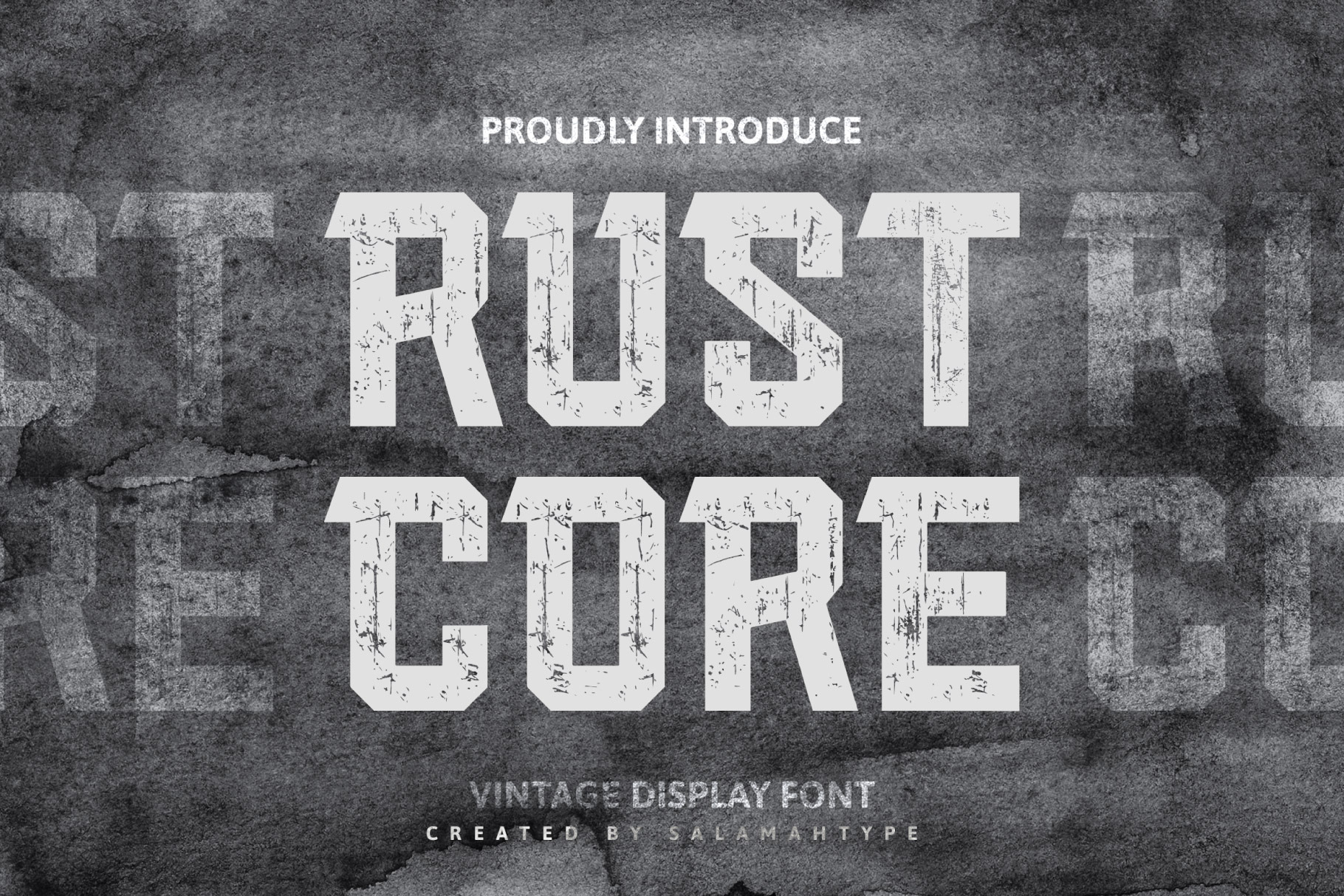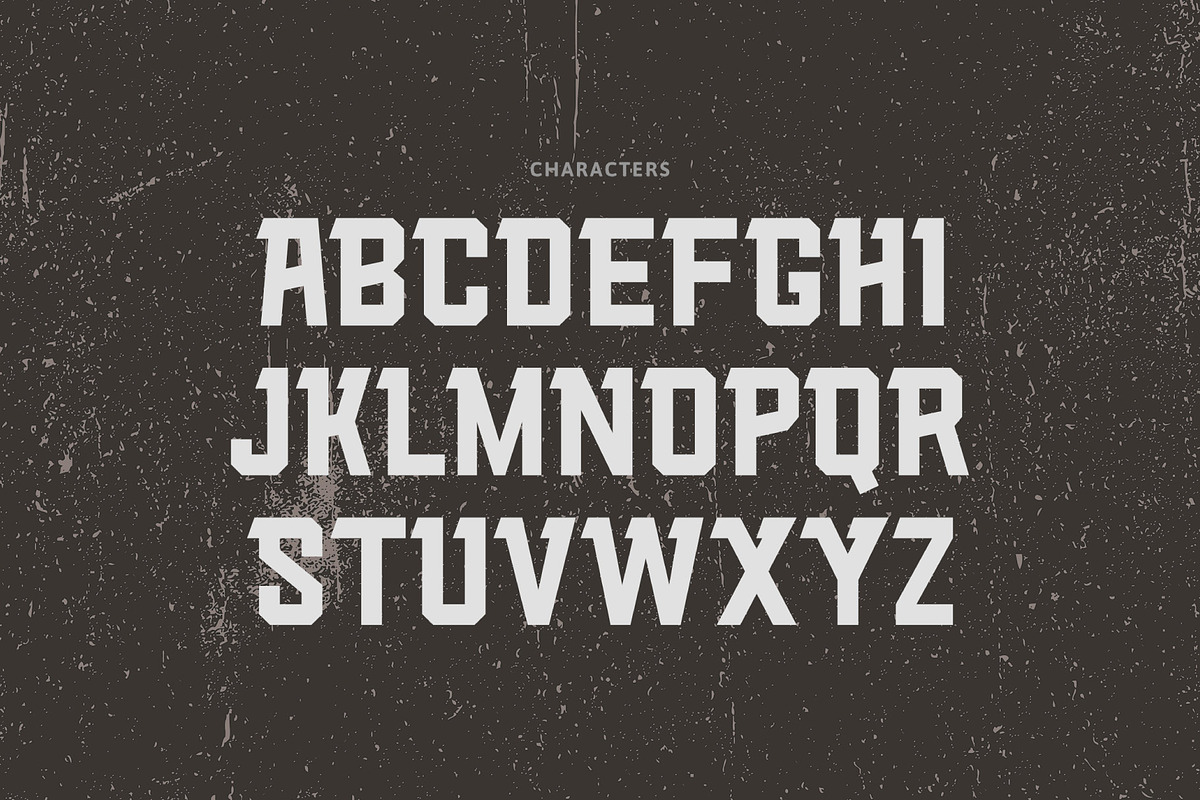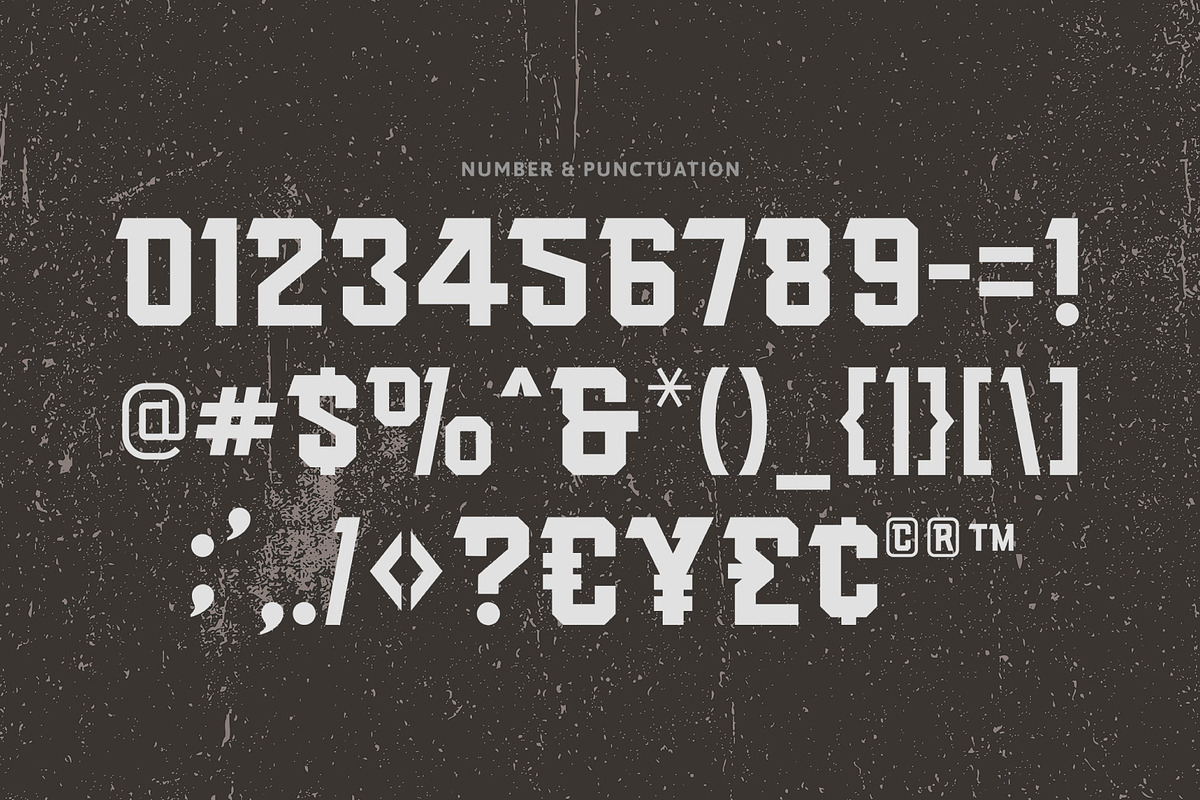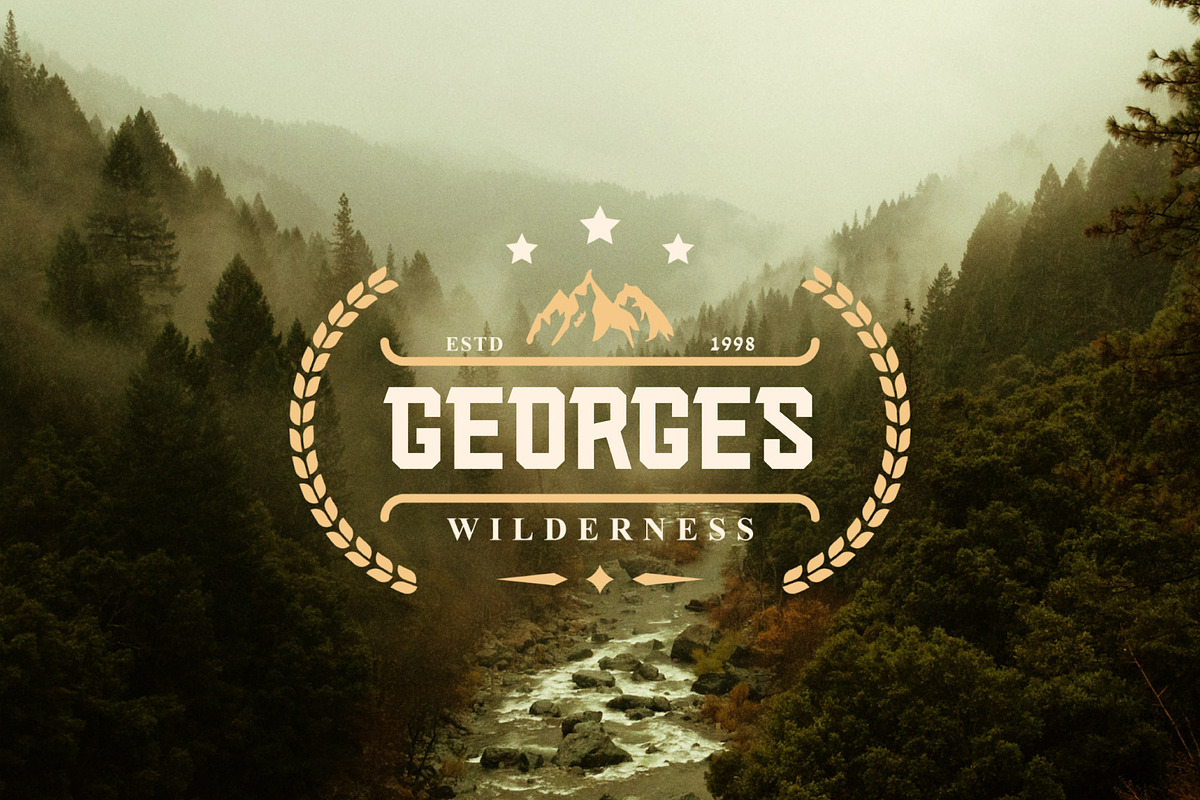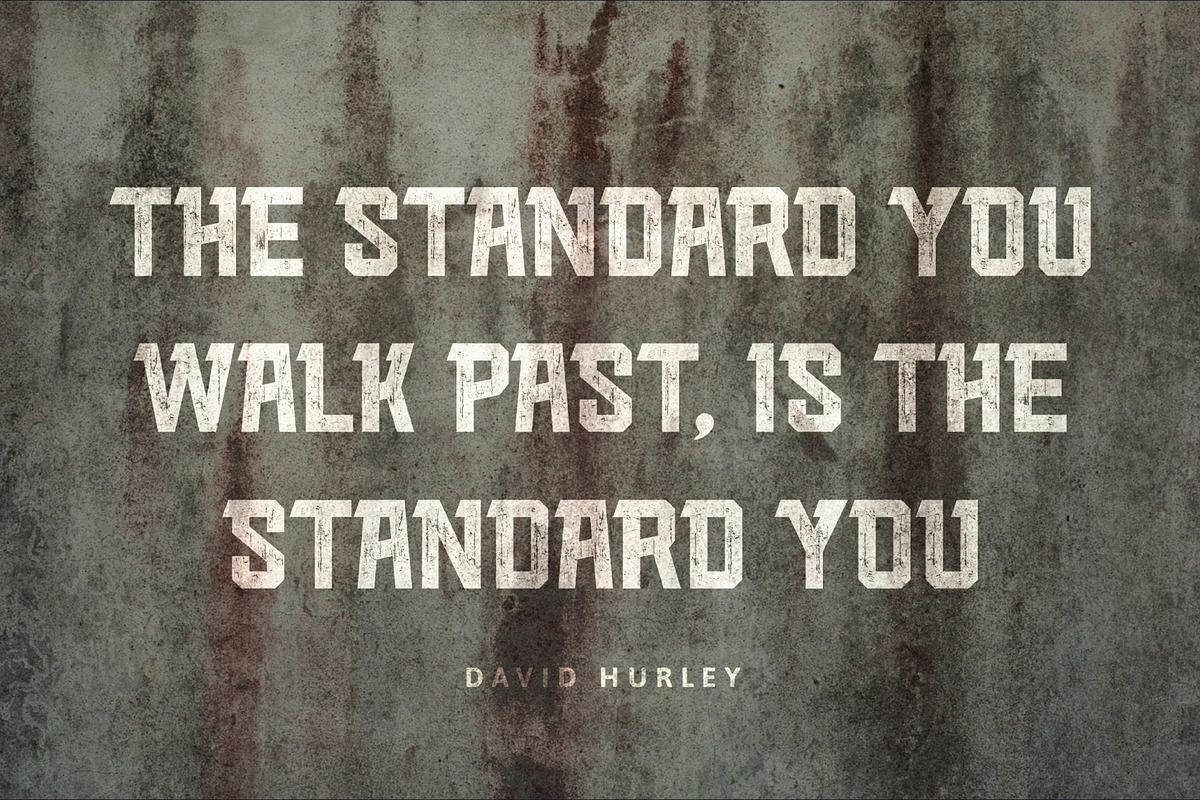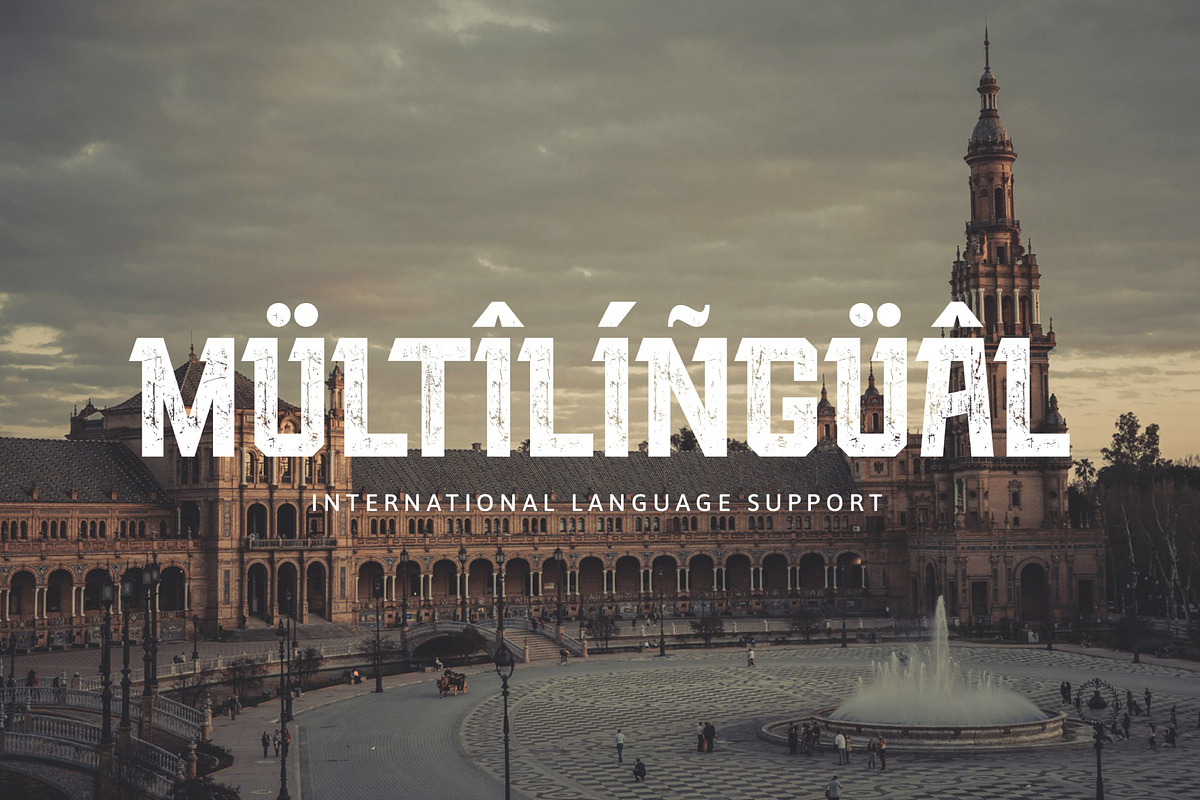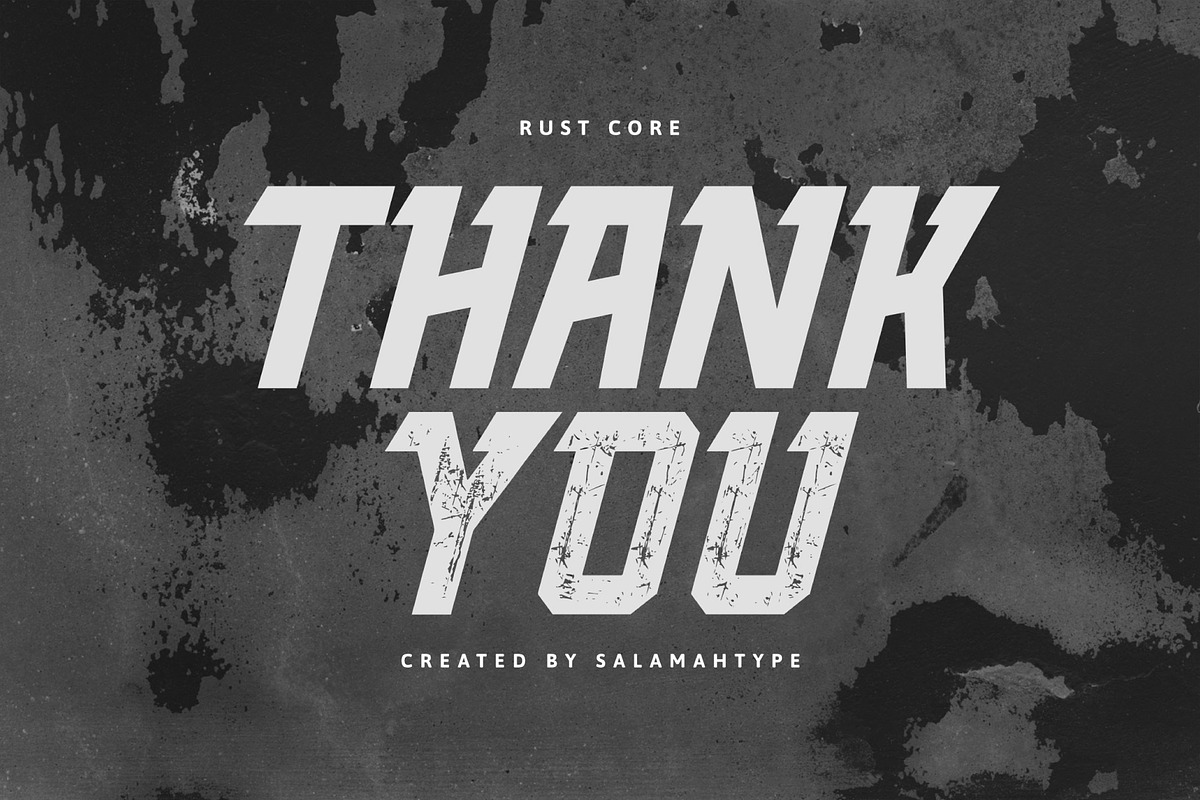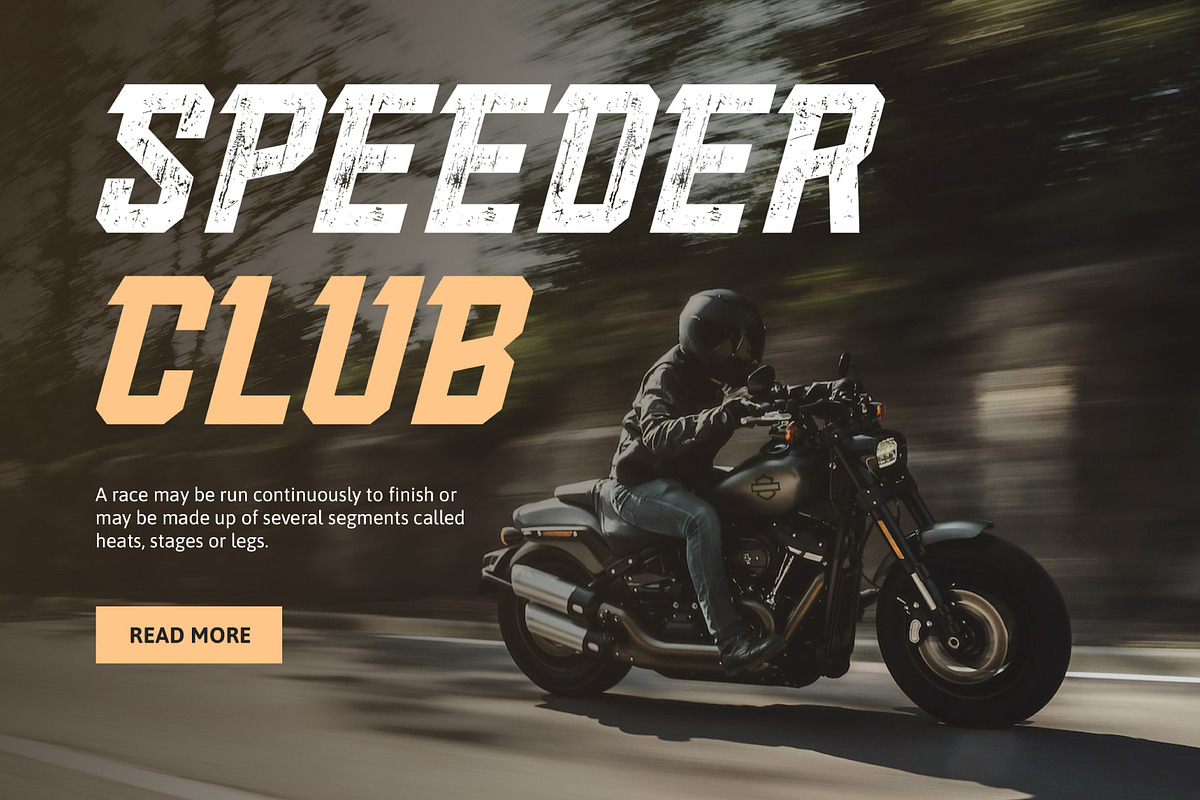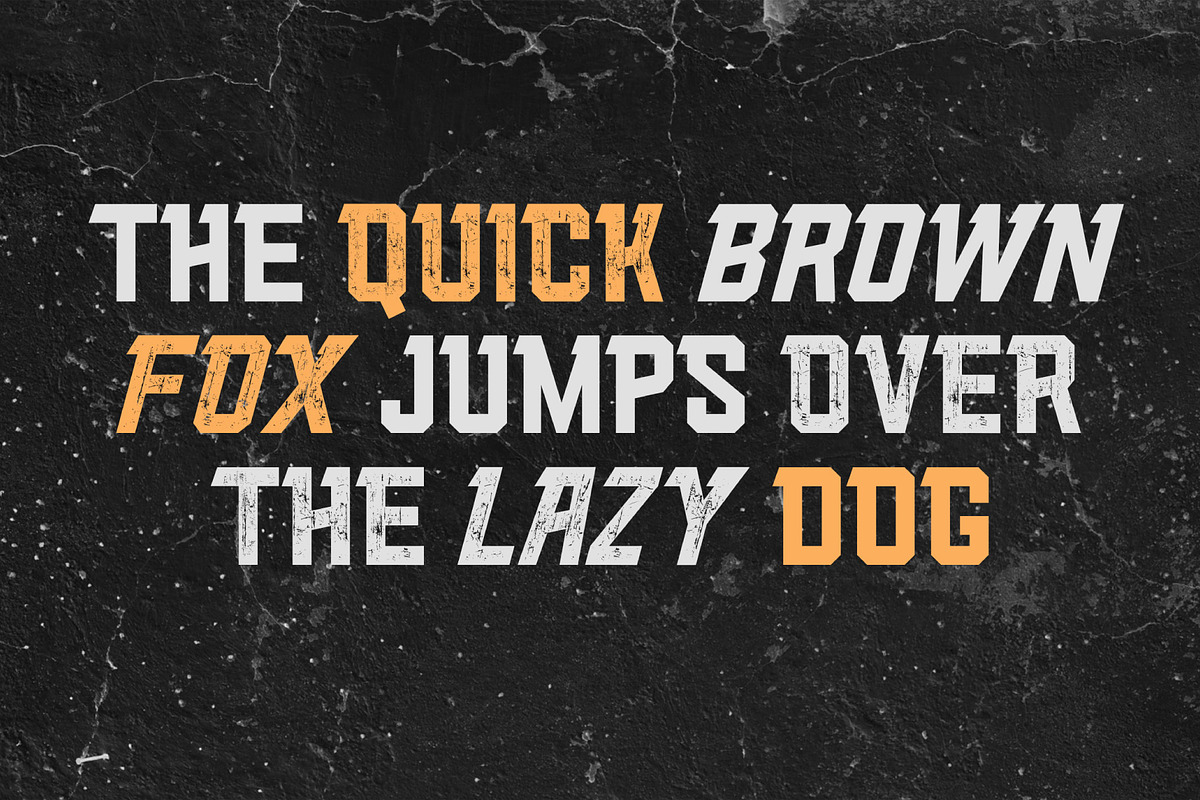
Rust Core - Display Font
Hello, Introducing our font called “RUST CORE” – display font with 4 styles included (Clean and Stamp/Textured). Perfect for branding projects, logos, labels and more. With texture like rust core, will make your design, product, logo or label more cool, unique and meaningful.
- A-Z all caps characters (4 styles)
- Numbers, symbols, and punctuation